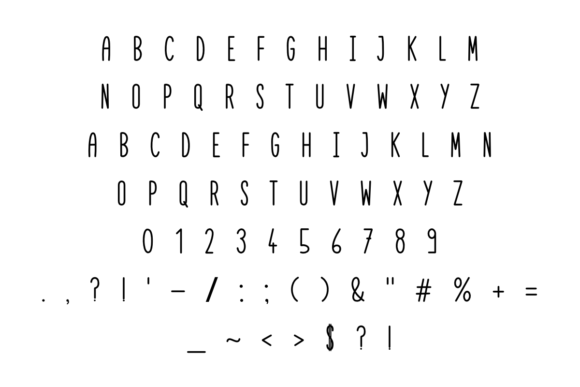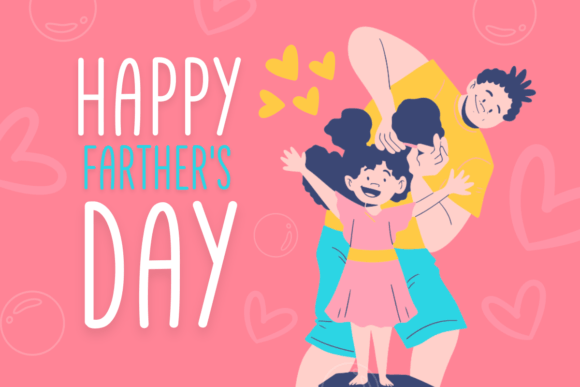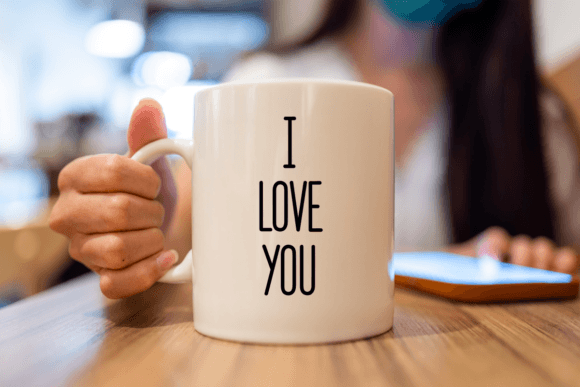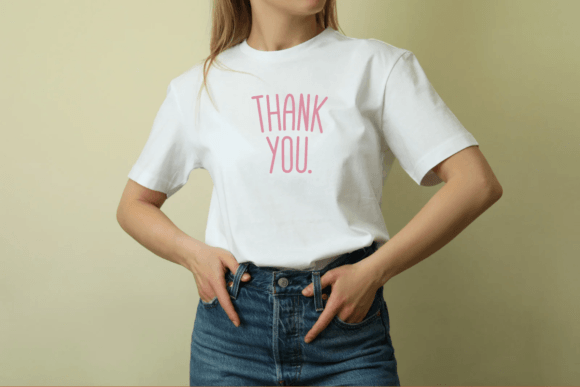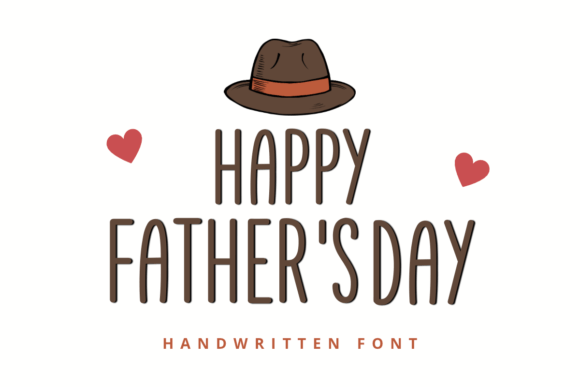
Happy Father’s Day Font: Elevate Your Greeting Cards and Designs with Style
Are you looking for a unique and stylish way to express your love and appreciation for your dad on Father’s Day? Look no further than the Happy Father’s Day Font! This tall and elegant display font is specifically designed to make your Father’s Day messages stand out, adding a touch of sophistication and warmth to your designs.
What Makes Happy Father’s Day Font Special?
Happy Father’s Day Font is a sleek and modern display font that boasts elongated letters, giving it a distinctive and refined look. Its tall stature makes it perfect for creating eye-catching headlines, titles, and messages that will grab attention. Whether you’re designing greeting cards, posters, social media posts, or any other visual material, this font is sure to elevate your creations and make them truly special.
As a designer or crafter, you know how important it is to have the right tools and resources to bring your ideas to life. Happy Father’s Day Font is an excellent addition to your font library, offering a versatile and stylish solution for all your Father’s Day design needs. With this font, you can:
- Create stunning greeting cards that will make your loved ones feel special
- Design eye-catching posters and flyers for Father’s Day events or promotions
- Enhance your social media posts with elegant and attention-grabbing headlines
- Develop unique and personalized gifts, such as mugs, t-shirts, and more
Key Features of Happy Father’s Day Font
Here are some of the key features that make Happy Father’s Day Font a must-have for designers and crafters:
- Tall and stylish display font: Perfect for creating eye-catching headlines and titles
- Sleek and elongated letters: Adds a touch of elegance and sophistication to your designs
- Easy to read and use: Clear and legible, making it perfect for a wide range of design applications
Tips for Using Happy Father’s Day Font
To get the most out of Happy Father’s Day Font, here are some tips and ideas to keep in mind:
- Experiment with colors and textures: Add depth and interest to your designs by combining the font with different colors and textures
- Play with font sizes and styles: Mix and match different font sizes and styles to create visual hierarchy and emphasis
- Add personal touches: Incorporate personal elements, such as photos or illustrations, to make your designs more meaningful and unique
Happy Father’s Day Font is a stylish and versatile display font that’s perfect for designers and crafters looking to create stunning Father’s Day designs. With its sleek and elongated letters, this font adds a touch of elegance and warmth to any design, making it ideal for greeting cards, posters, social media posts, and more. Download Happy Father’s Day Font today and elevate your designs to the next level!